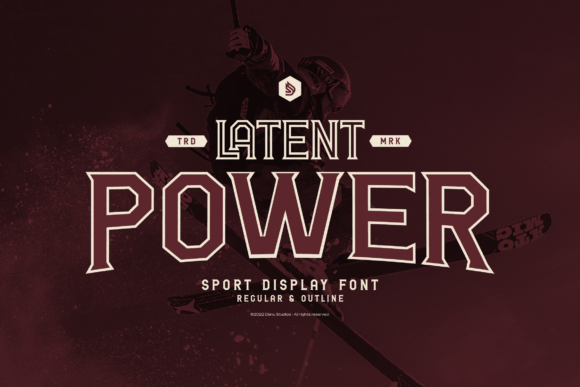
Latent Power Font Review for Sports Branding
It was 4:00 PM on a Thursday, and I was staring at a mobile mockup for an upcoming fitness challenge campaign that just felt flat. The copy was strong, the imagery was high-energy, but the headline typography lacked the necessary punch to stop a user from scrolling past our Instagram ad. This is exactly the type of workflow bottleneck where Latent Power proves its worth as a specialized tool in a marketer’s arsenal. As a high-impact sports display font designed to energize your titles, team branding, and athletic apparel, this typeface solved my immediate hierarchy problem by introducing a visual weight that standard sans serifs simply could not provide. When you are building campaigns for competitive niches, having Fonts like this ready in your asset library can be the difference between a passive glance and an active click.
Latent Power for High-Impact Social Media Graphics
When integrating Latent Power into social media graphics, specifically for platforms like Instagram and TikTok, the Slab Serif structure provides immediate legibility even at thumbnail sizes. In my recent test for a seasonal training program launch, I used this font for the primary hook text overlaid on a dark, motion-blurred background. The strong geometric form and sharp edges cut through the visual noise of a busy feed much more effectively than softer, rounded alternatives. For social media managers and content creators, readability is the first metric of success; if they cannot read the offer in under a second, the engagement is lost. Latent Power excels here because its bold stroke width maintains integrity when compressed into square posts or vertical reel covers.
I found that this typeface performs best when treated as a graphical element rather than just text. Because it delivers a dynamic and competitive aesthetic, it pairs exceptionally well with high-contrast color schemes typical in fitness and sports marketing. However, a practical word of advice for digital marketers: avoid using this specific display font for captions or secondary details. Its personality is too loud for small body copy. Instead, reserve Latent Power strictly for the main headline, the discount percentage, or the call-to-action button text. This strategic restraint ensures the font retains its premium feel without overwhelming the viewer or cluttering the limited screen real estate available on mobile devices.
Using Latent Power for Team Branding and Athletic Apparel
Beyond digital ads, Latent Power is a high-impact sports display font designed to energize your titles, team branding, and athletic apparel, making it a versatile choice for merchandise and physical brand touchpoints. During a recent rebrand for a local esports league, we tested this Slab Serif across jersey mockups and banner designs. The sharp edges translate beautifully to embroidery and heat-transfer vinyl, retaining their definition where thinner fonts might fray or disappear. For entrepreneurs and online sellers managing print-on-demand shops, this durability in reproduction is a critical selling point. You want Fonts that look as good on a polyester shirt as they do on a retina display, and the geometric stability of this typeface supports that cross-medium consistency.
From a brand identity perspective, using Latent Power helps establish a tone of authority and intensity without resorting to aggressive grunge textures that can date a design quickly. It feels modern and structured, which aligns well with contemporary athletic aesthetics. When designing team logos or wordmarks, I recommend utilizing the uppercase settings to maximize the slab serif footprint. This creates a solid, blocky foundation that communicates reliability and strength. Just ensure you check the commercial font licensing before printing merchandise for resale, as proper usage rights are essential for any professional campaign involving physical goods or branded templates.
Optimizing Latent Power for YouTube Thumbnails and Video Titles
For YouTubers and video content strategists, Latent Power serves as an excellent solution for creating clickable thumbnails that stand out in suggested video sidebars. The font’s heavy weight allows for tight kerning and stacking, enabling you to fit powerful keywords into the limited safe zones of a video preview image. In a recent A/B test for a workout tutorial series, thumbnails featuring this display font outperformed those using standard system fonts because the text acted as a visual anchor. The sharp edges create natural leading lines that direct the viewer's eye toward the focal point of the image, subtly guiding attention to the subject matter while reinforcing the video's energetic promise.
However, applying Latent Power to video assets requires careful consideration of contrast and background complexity. Since this is a Slab Serif with significant visual mass, placing it directly over detailed footage can reduce comprehension. I always recommend adding a subtle drop shadow, outer glow, or semi-transparent shape behind the text when using this font on video stills. This ensures the geometric forms remain distinct against varying lighting conditions. Additionally, while Latent Power is fantastic for three-to-four-word hooks, it is not suitable for long-form video titles or descriptions. Pair it with a clean, neutral sans serif font for the metadata to maintain a professional, readable hierarchy that satisfies both human viewers and platform algorithms.
Strategic Font Pairing with Latent Power for Digital Ads
To build a cohesive campaign system, understanding how to pair Latent Power with complementary Fonts is essential for maintaining visual balance across landing pages and email promotions. Because this typeface carries so much character and density, it demands a supporting cast that is quiet and functional. In my workflow, I consistently pair this Slab Serif with a geometric sans serif like Montserrat or Inter for subheads and body copy. The contrast between the sharp, expressive serifs of the headline and the smooth, invisible utility of the body text creates a professional tension that guides the reader through the sales funnel. Avoid pairing it with other decorative or script fonts, as this creates visual competition that dilutes the message clarity.
This pairing strategy extends to web design and landing page headers as well. When using Latent Power for H1 tags on a promotional site, ensure your CSS accounts for its larger x-height and tighter spacing. You may need to adjust line-height or letter-spacing slightly to prevent the letters from feeling cramped next to lighter UI elements. For email marketers, remember that some older email clients may not render custom web fonts correctly, so always set a robust fallback stack that mimics the geometric slab style. By treating Latent Power as the star player and surrounding it with supportive, utilitarian typography, you ensure that the high-impact energy enhances the conversion goal rather than distracting from it. Always verify multilingual support and included alternates in the font files to ensure your global campaigns maintain typographic consistency across different regions and languages.